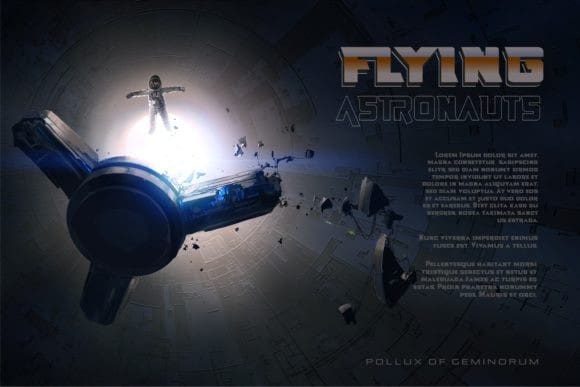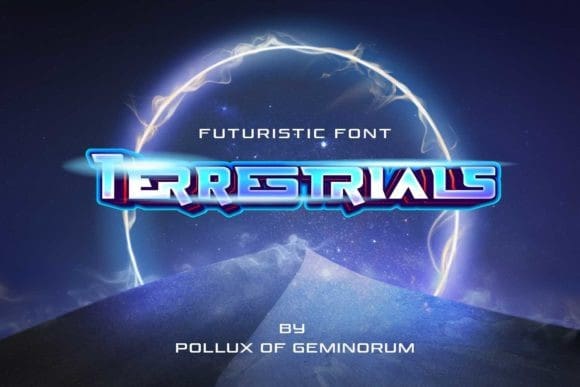
Terrestrials Futuristic Font
Terrestrials Futuristic Font is a cool, bold futuristic display font. It is suitable for any projects such as: logos, branding projects, label, photography, watermark, special events, and all your other lovely projects that need a sci-fi taste.